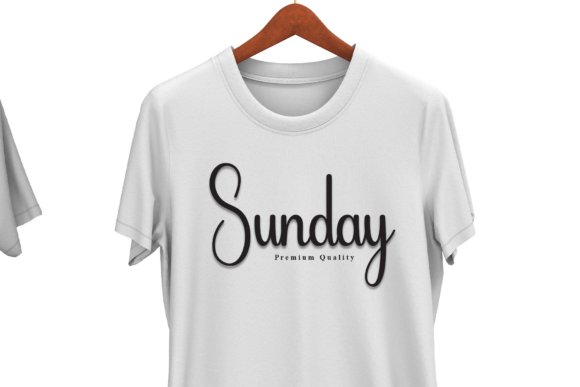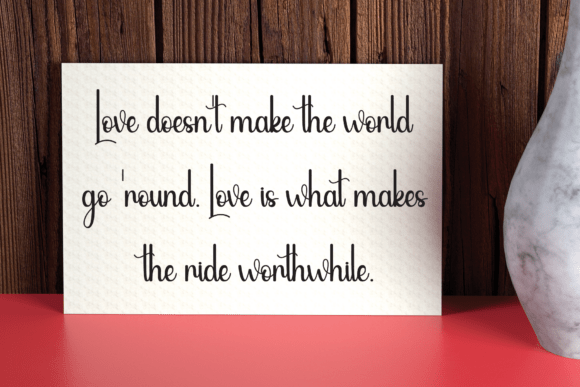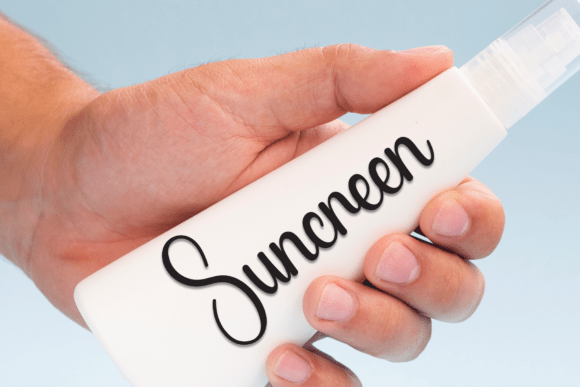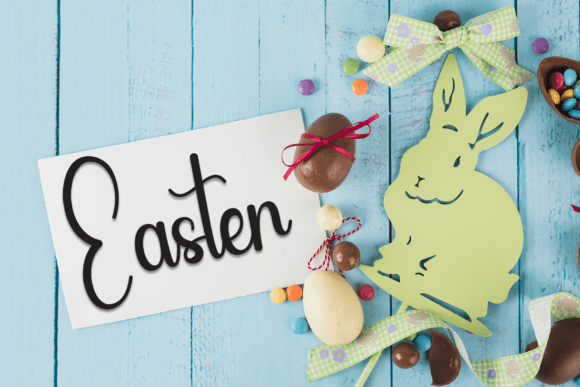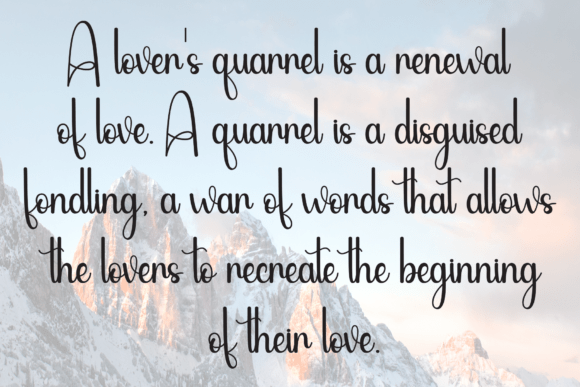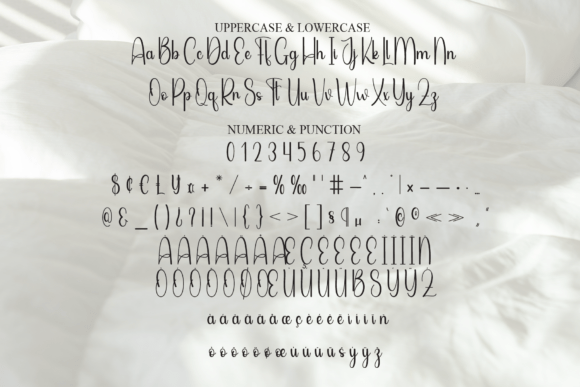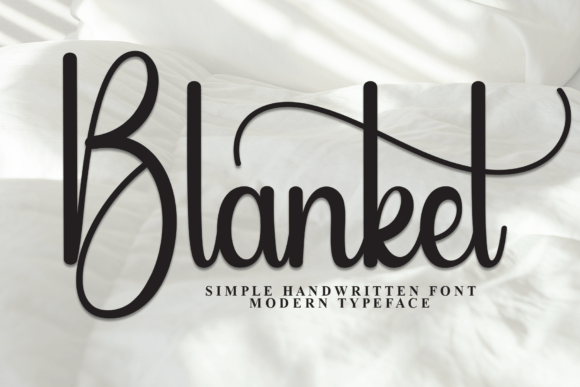
Introducing Blanket Font: Elevate Your Designs with Elegance and Fluidity
Are you on the hunt for a font that exudes sophistication, charm, and a touch of modernity? Look no further than Blanket Font, a stylish handwritten script font that is sure to take your designs to the next level. With its smooth, flowing strokes and natural feel, Blanket is the perfect choice for designers, crafters, and creatives looking to add a personal touch to their projects.
The Characteristics of Blanket Font
Blanket Font is a true showstopper, boasting a range of characteristics that set it apart from other fonts. Its smooth, flowing strokes create a sense of fluidity and movement, giving your designs a dynamic and energetic feel. The font’s natural, handwritten quality adds a touch of warmth and approachability, making it perfect for projects where you want to connect with your audience.
One of the standout features of Blanket Font is its elegant and sophisticated feel. The font’s refined lines and curves create a sense of luxury and refinement, making it ideal for high-end branding, invitations, and other premium designs. Whether you’re looking to create a sense of drama and flair or a more subtle, understated look, Blanket Font has got you covered.
Uses for Blanket Font
So, what can you use Blanket Font for? The possibilities are endless! Here are just a few ideas to get you started:
• Branding: Use Blanket Font to create a logo, business cards, or other marketing materials that exude elegance and sophistication.
• Invitations: Add a touch of luxury and refinement to your wedding invitations, party invites, or other special event designs.
• Creative Projects: Use Blanket Font to add a personal touch to your art, craft, or DIY projects, such as handmade cards, gift tags, or scrapbooking pages.
• Digital Designs: Incorporate Blanket Font into your digital designs, such as social media graphics, blog headers, or website titles.
Why Choose Blanket Font?
So, why should you choose Blanket Font over other fonts? Here are just a few reasons:
• Unique and Versatile: Blanket Font is a one-of-a-kind typeface that can be used in a wide range of design projects.
• Elegant and Sophisticated: The font’s refined lines and curves create a sense of luxury and refinement.
• Easy to Read: Despite its elegant feel, Blanket Font is easy to read and understand, making it perfect for body text and other longer-form content.
• High-Quality: Blanket Font is a high-quality typeface that is designed to deliver exceptional results in any design project.
Tips for Using Blanket Font
Here are a few tips for getting the most out of Blanket Font:
• Use it sparingly: While Blanket Font is beautiful, it can be overwhelming if used too much. Use it sparingly to add a touch of elegance and sophistication to your designs.
• Pair it with other fonts: Experiment with pairing Blanket Font with other fonts to create a unique and visually appealing design.
• Adjust the size and color: Play around with different sizes and colors to find the perfect combination for your design.
In conclusion, Blanket Font is a stylish and elegant handwritten script font that is perfect for designers, crafters, and creatives looking to add a personal touch to their projects. With its smooth, flowing strokes and natural feel, Blanket Font is sure to elevate your designs and take them to the next level. Whether you’re looking to create a sense of luxury and refinement or a more subtle, understated look, Blanket Font has got you covered.